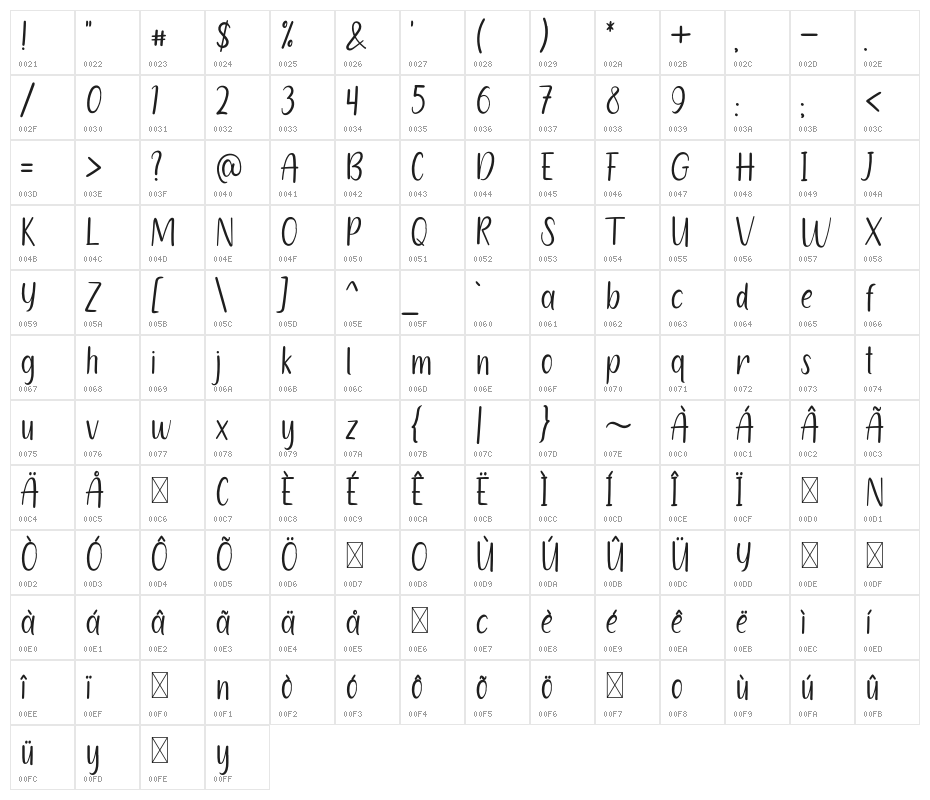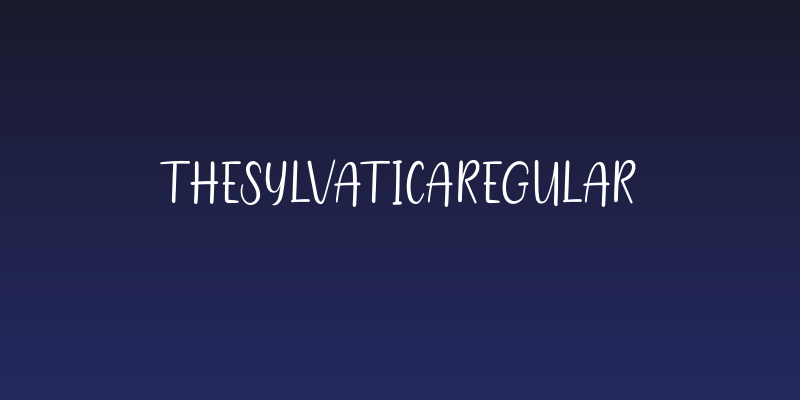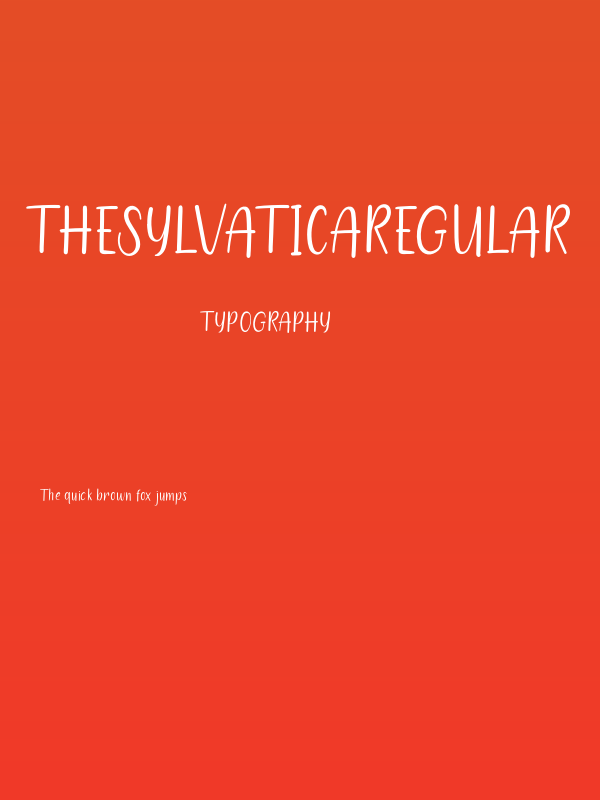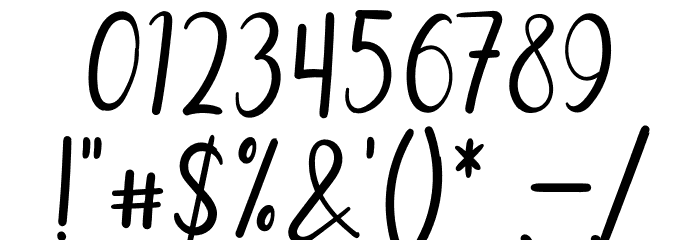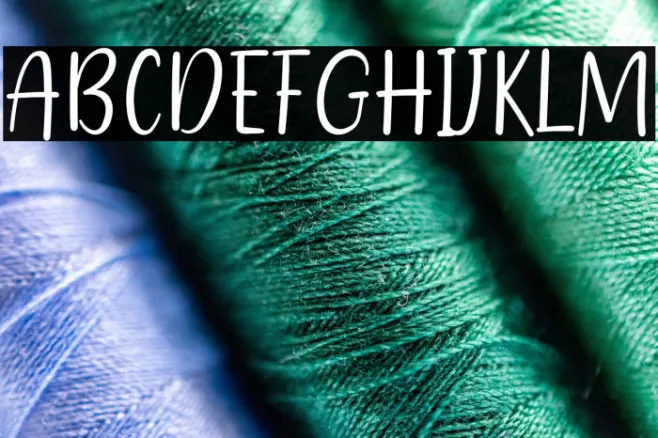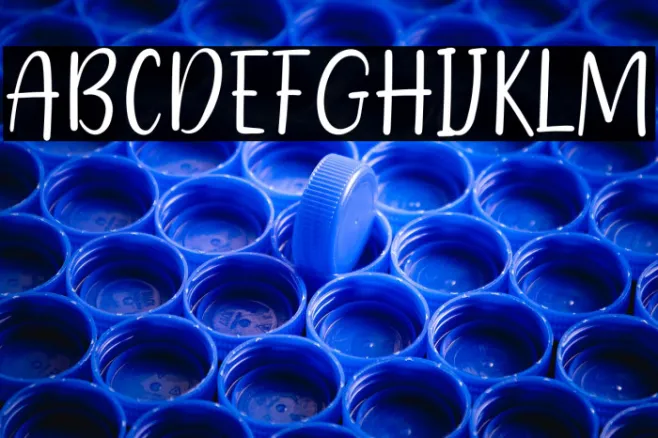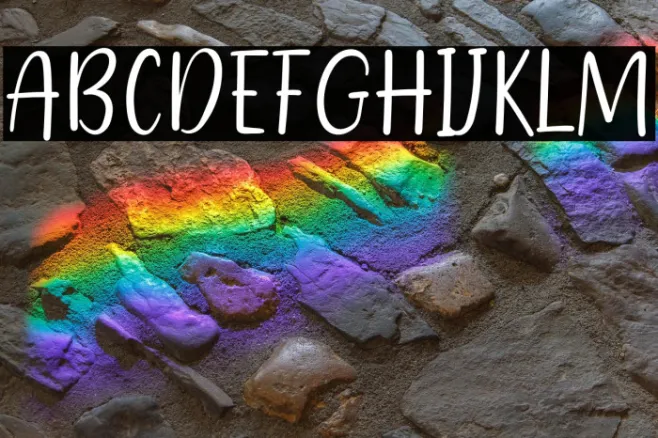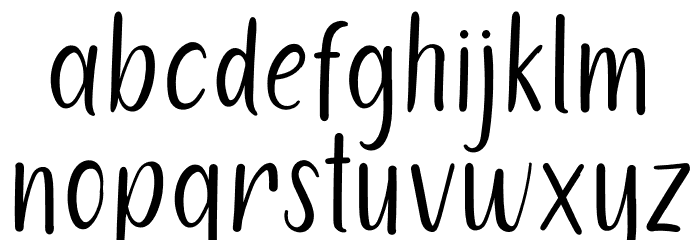
TheSylvaticaRegular Font
TheSylvaticaRegular Description
This font features a playful and casual handwritten style, characterized by its smooth, flowing lines and slightly irregular shapes. The uppercase letters are tall and narrow, while the lowercase letters maintain a consistent height, giving the font a cohesive look. The numerals are rounded and easy to read, complementing the overall style. Special characters are well-integrated, maintaining the font's whimsical nature. The font's design is approachable and friendly, making it suitable for a variety of creative projects.
| Proposed Projects | Ideal for greeting cards, invitations, children's books, and playful branding. |